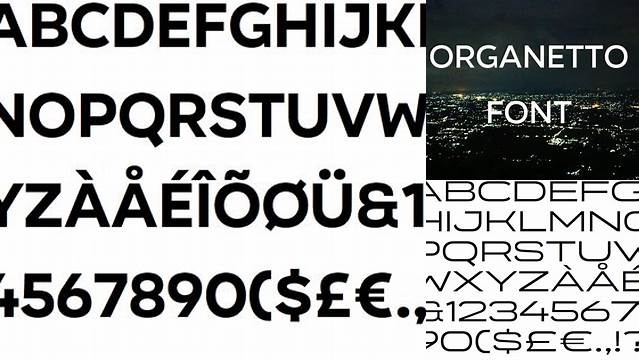
Understanding the Organetto Bold Semi Expanded Font
The Organetto Bold Semi Expanded font is a striking typographic choice that commands attention with its unique character. Its bold weight combined with a semi-expanded width creates a powerful yet readable presence, making it ideal for a wide range of design applications. This font isn't just about making text larger; it’s about imbuing your designs with a sense of authority and style. When you’re looking for a typeface that can anchor a headline, define a brand, or simply add a touch of sophistication to your projects, Organetto Bold Semi Expanded often comes to the rescue. Its design philosophy balances the robustness of a bold font with the spaciousness of an expanded form, resulting in a harmonious visual rhythm that’s both impactful and easy on the eyes. Think of it as a perfectly tailored suit for your words – strong, well-defined, and undeniably present. The semi-expanded nature means it offers a bit more breathing room than a condensed font, allowing for better legibility in certain contexts, especially when dealing with longer blocks of text or when space is less of a constraint and more of a design element to be utilized. This makes it incredibly versatile. Whether you're designing a poster, a website banner, a book cover, or even a logo, the Organetto Bold Semi Expanded font provides a robust foundation upon which to build your visual narrative. Its distinct personality means it stands out from the crowd of more generic sans-serif or serif fonts, offering designers a way to inject a unique flair into their work. The interplay between the bold weight and the semi-expanded width is crucial to its appeal. The bold nature ensures that it can hold its own in busy layouts, while the semi-expanded form prevents it from feeling cramped or overly aggressive, maintaining a welcoming and accessible feel. This careful balance is what makes it a favorite among many designers who appreciate its ability to convey strength without sacrificing clarity. Guys, if you’re into making your designs pop, this font is definitely one to have in your arsenal.
Why Choose Organetto Bold Semi Expanded?
Choosing the right font is paramount in graphic design, and the Organetto Bold Semi Expanded font offers a compelling combination of features that make it a standout option. Its bold weight ensures maximum impact, making headlines and key phrases instantly noticeable. This is crucial for grabbing your audience’s attention in a crowded visual landscape. Furthermore, the semi-expanded width provides excellent legibility, allowing for comfortable reading even at larger sizes or when used in slightly longer text segments. Unlike condensed fonts that can sometimes feel cramped, Organetto Bold Semi Expanded offers a more open and airy feel, which enhances readability and aesthetic appeal. This font excels in applications where a strong, confident message needs to be conveyed. Think about marketing materials, event posters, website hero sections, or even branding elements for companies that want to project an image of stability and professionalism. The versatility of this font is another major selling point. It can adapt to various design styles, from modern and minimalist to bold and industrial. Its clean lines and well-defined structure mean it integrates seamlessly into diverse layouts without clashing with other design elements. For guys who are always looking for that perfect font to elevate their projects, Organetto Bold Semi Expanded delivers. It’s not just about aesthetics; it’s about functionality too. The consistency in its stroke weight and the clear distinction between its letterforms ensure that it remains legible across different digital and print media. This reliability makes it a go-to choice for professionals who need a font that performs exceptionally well under various conditions. The unique character of the Organetto Bold Semi Expanded font also allows designers to create memorable and distinctive visual identities. Whether you're crafting a logo or designing a full brand package, this font can help you establish a strong and recognizable presence. Its ability to be both striking and readable makes it a powerful tool in any designer's toolkit, ensuring your message is not only seen but also understood and appreciated. The subtle nuances in its design, like the precise curve of an 'S' or the solid structure of an 'M', all contribute to its overall appeal and effectiveness.